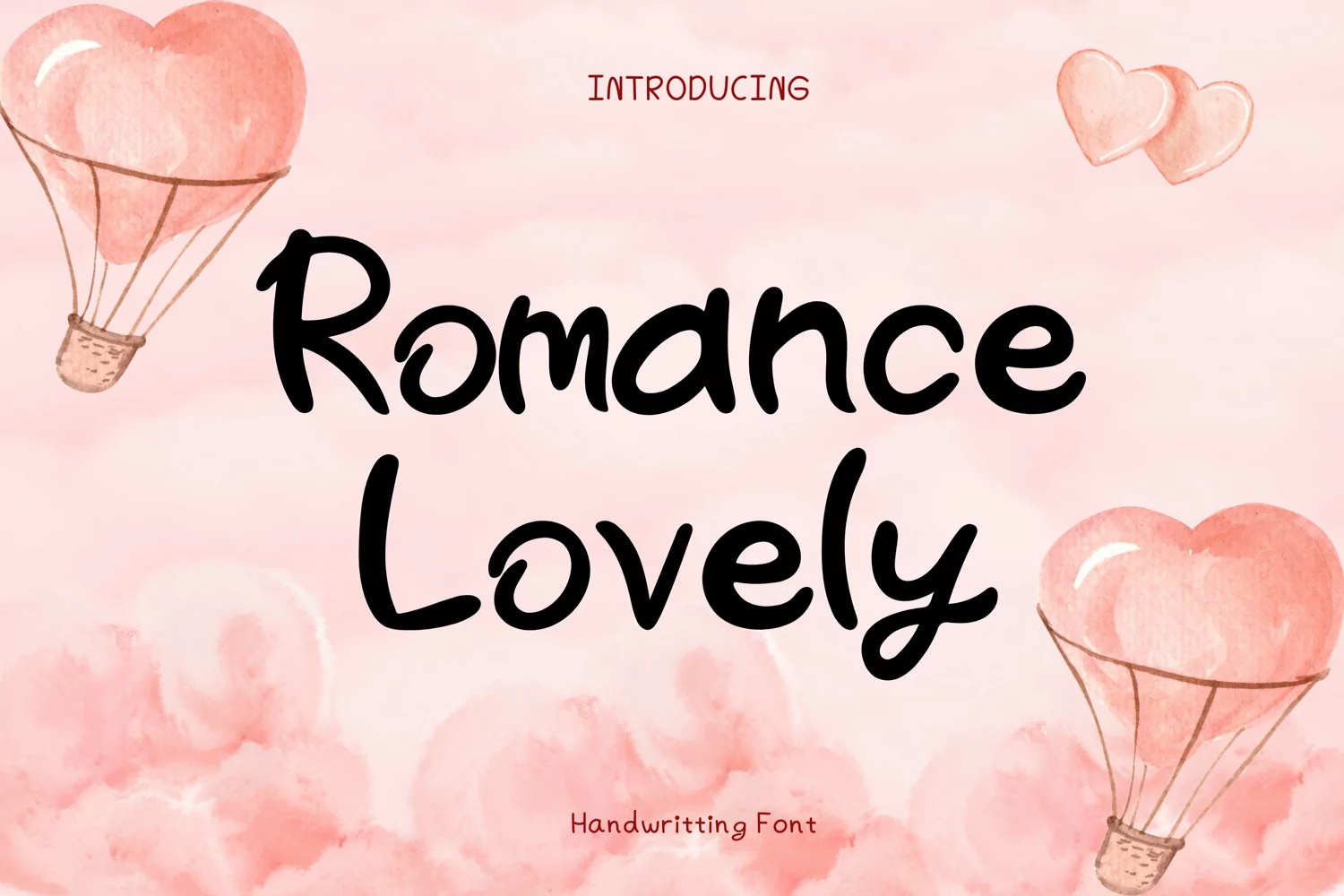
Romance Lovely Style
RomanceLovely
Romance Lovely Style is a whimsical and clean handwritten font. It can easily be matched to an incredibly large set of projects, so add it to your creative ideas and notice how it makes them stand out!